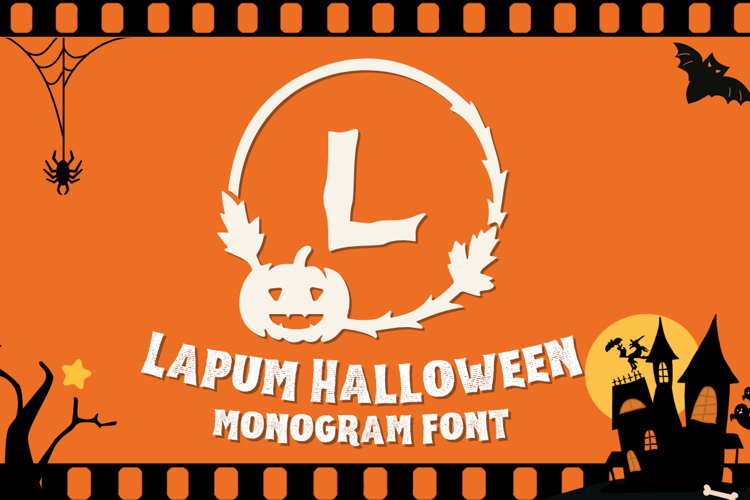
Meet Lapum Halloween — a pumpkin-themed monogram font that turns any initial into a finished Halloween badge. Each glyph places a letter inside a circular wreath with a jack-o’-lantern accent, giving you instant, consistent emblems for seasonal projects.
Type once, get a ready-made emblem. The empty frame lets you add icons or layered graphics, speeding up packs, labels, signage, and social graphics.